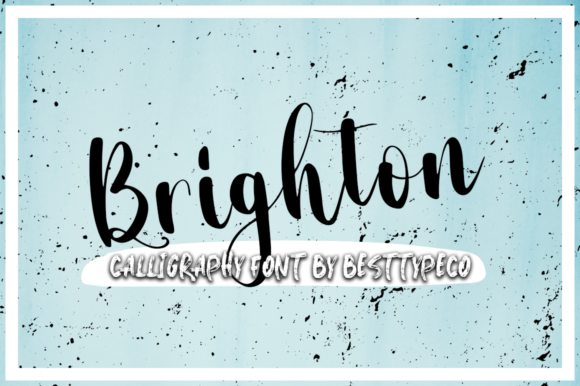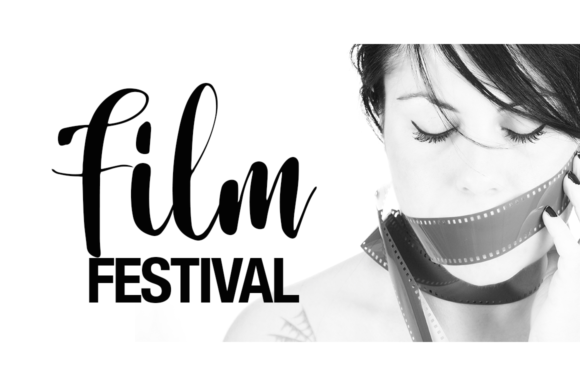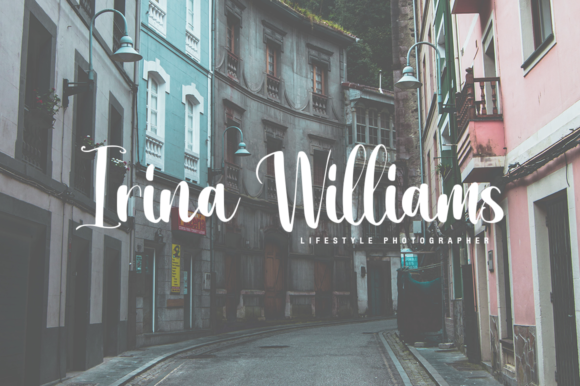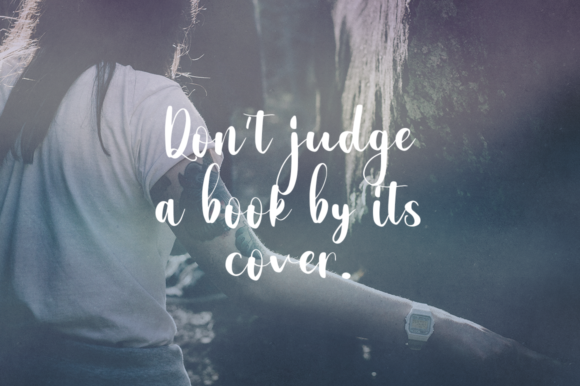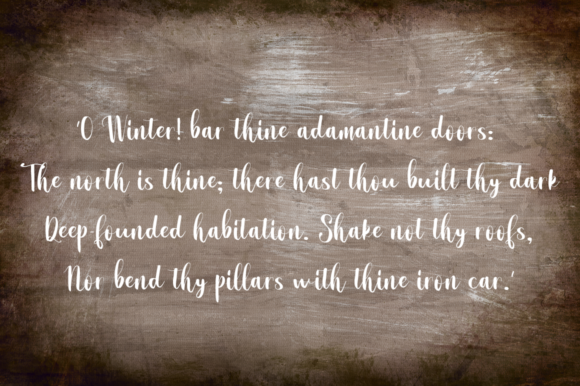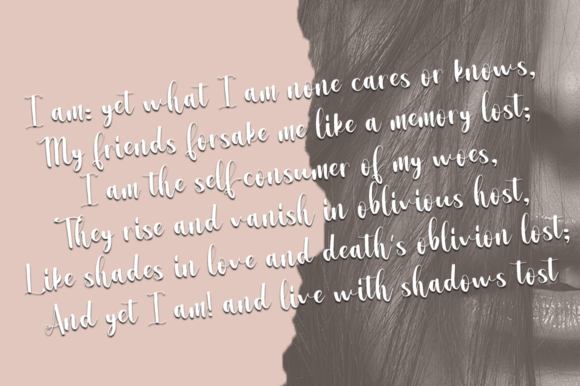
The Brighton
About The Brighton Font
The Brighton is a fresh and dynamic script that delivers an overall great font experience. Get inspired by its bold approach to lettering.